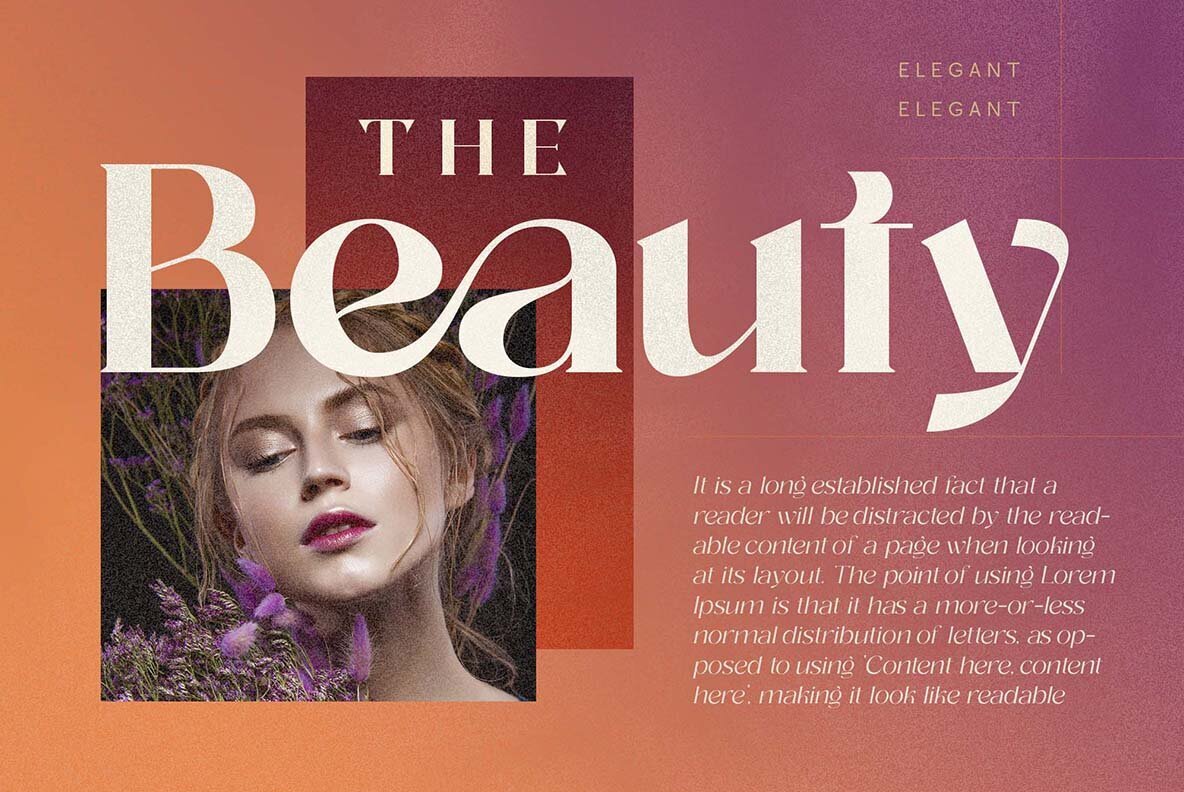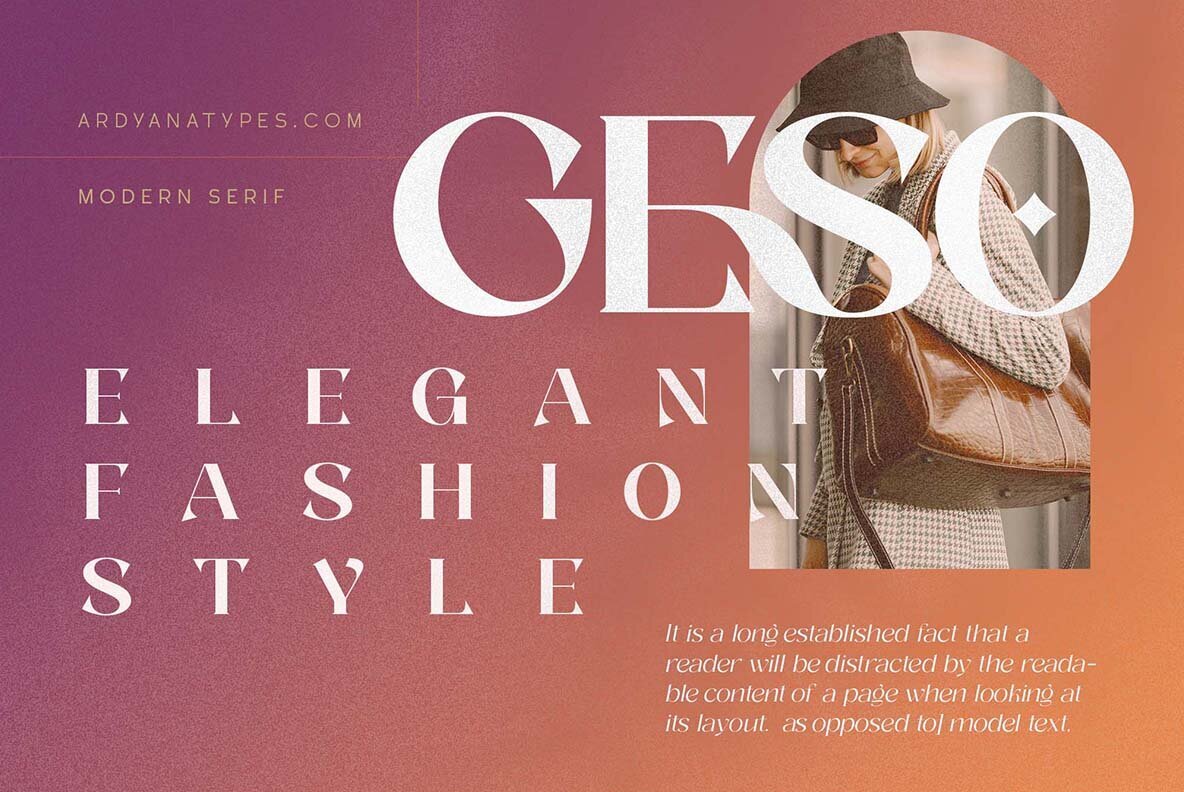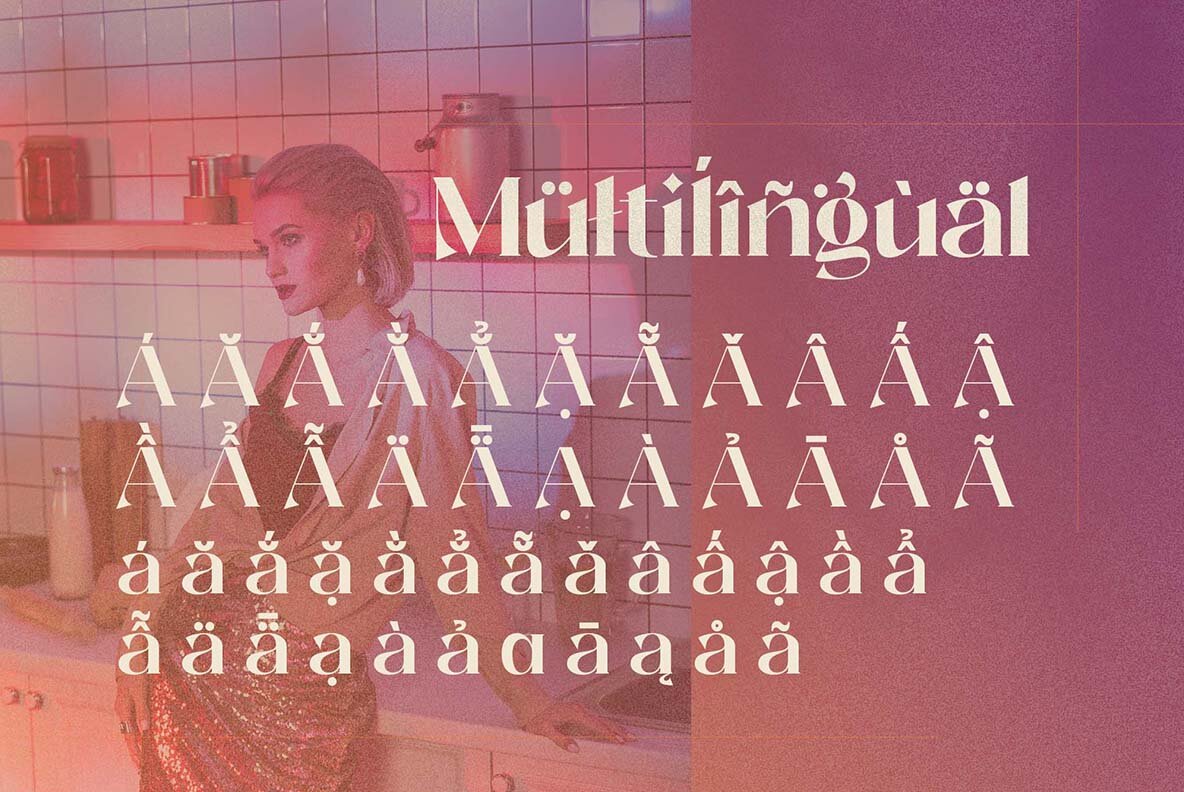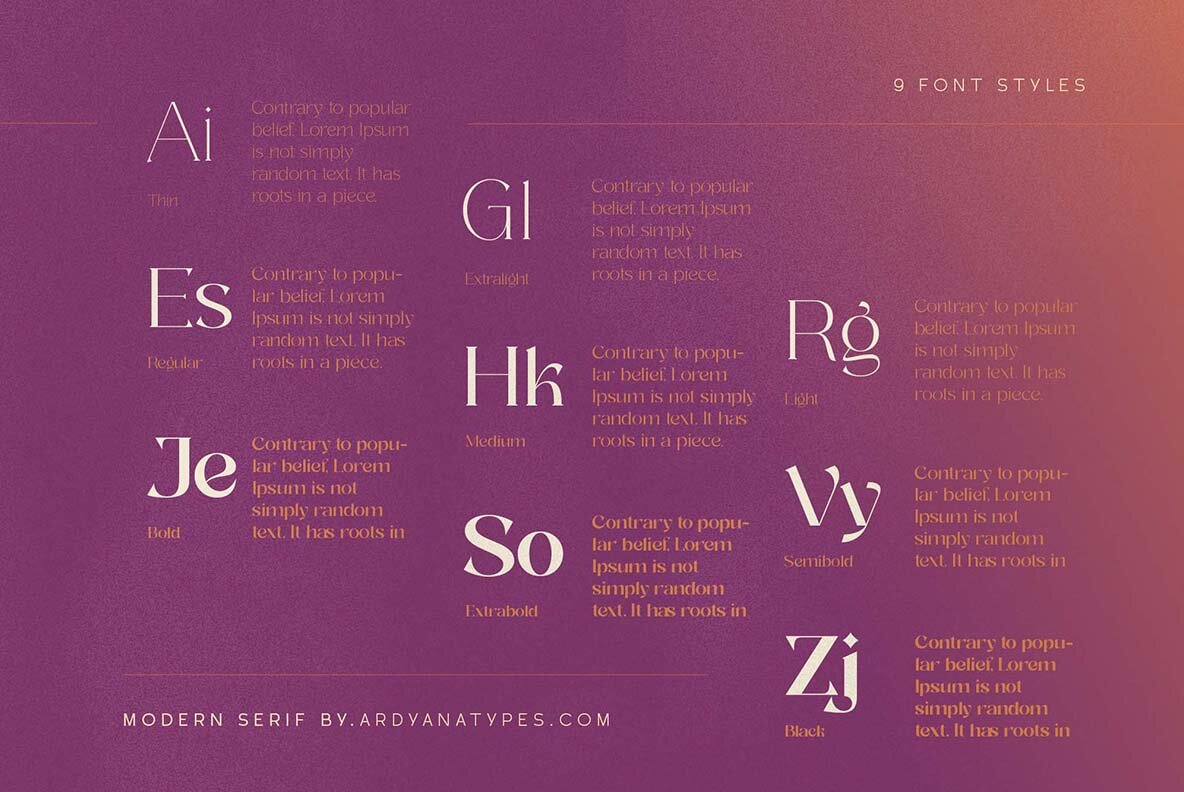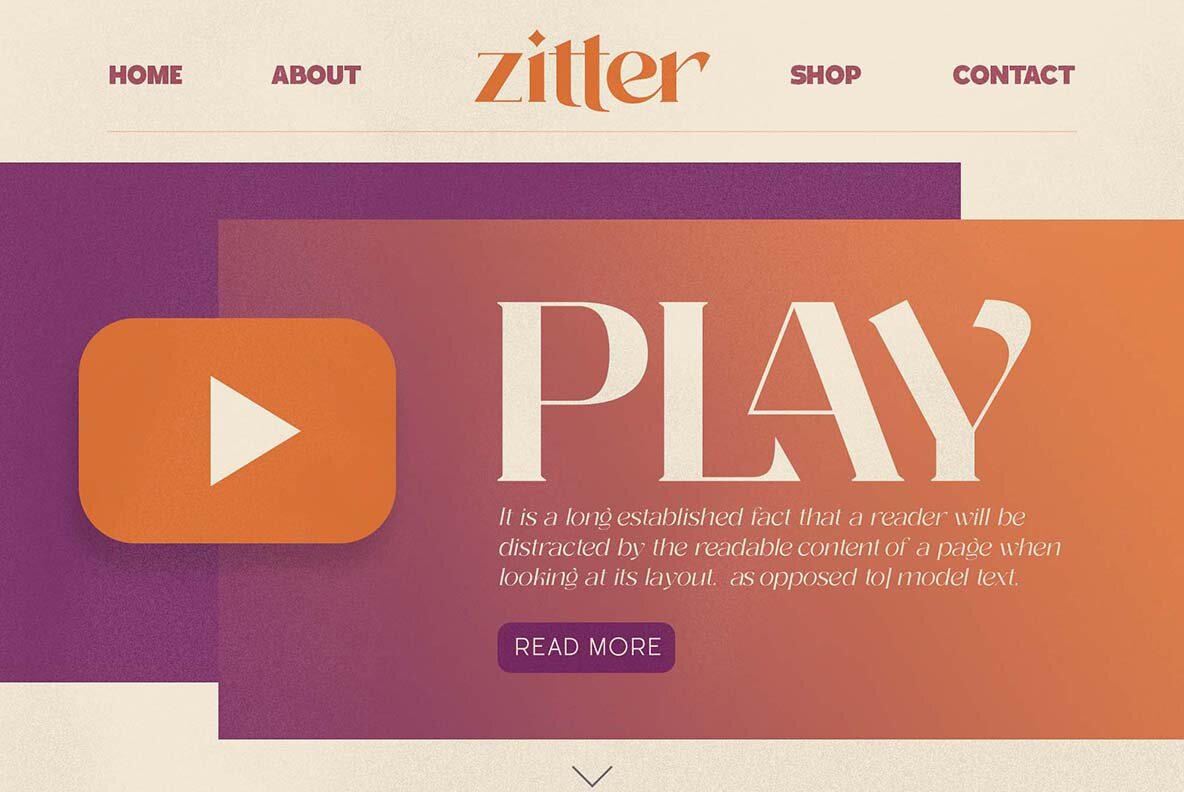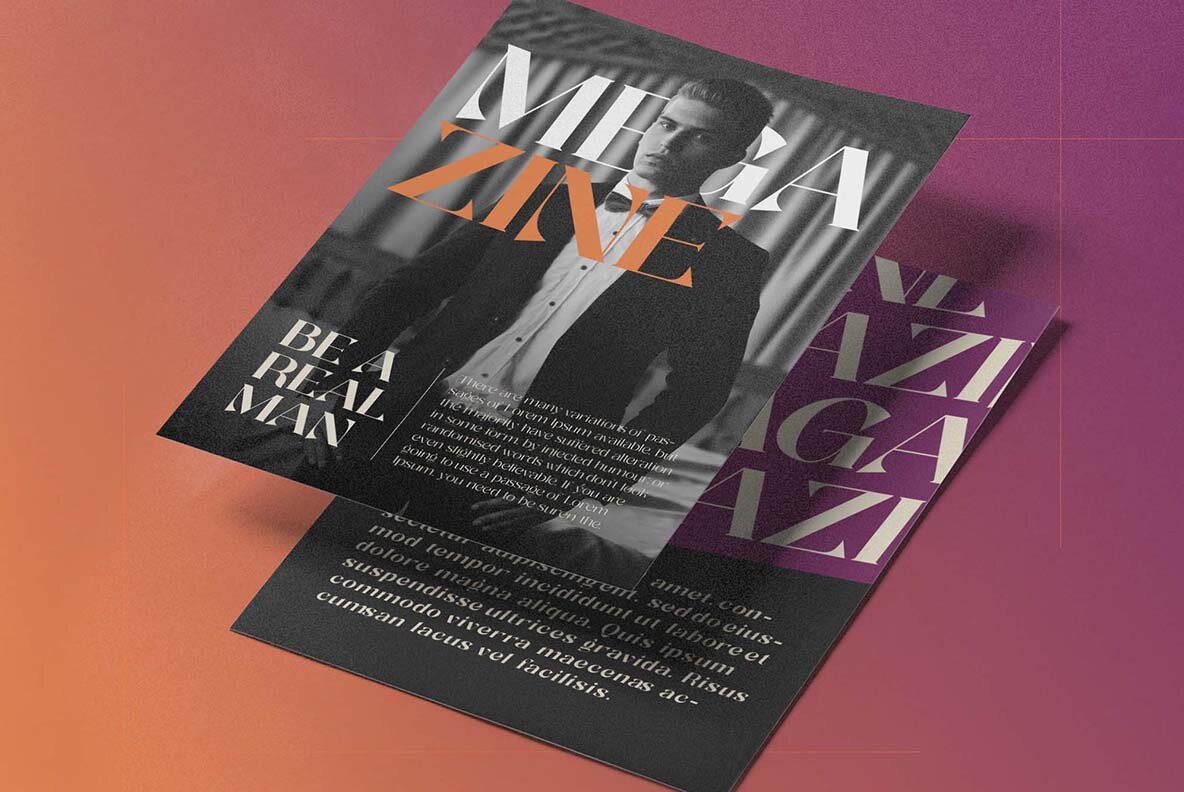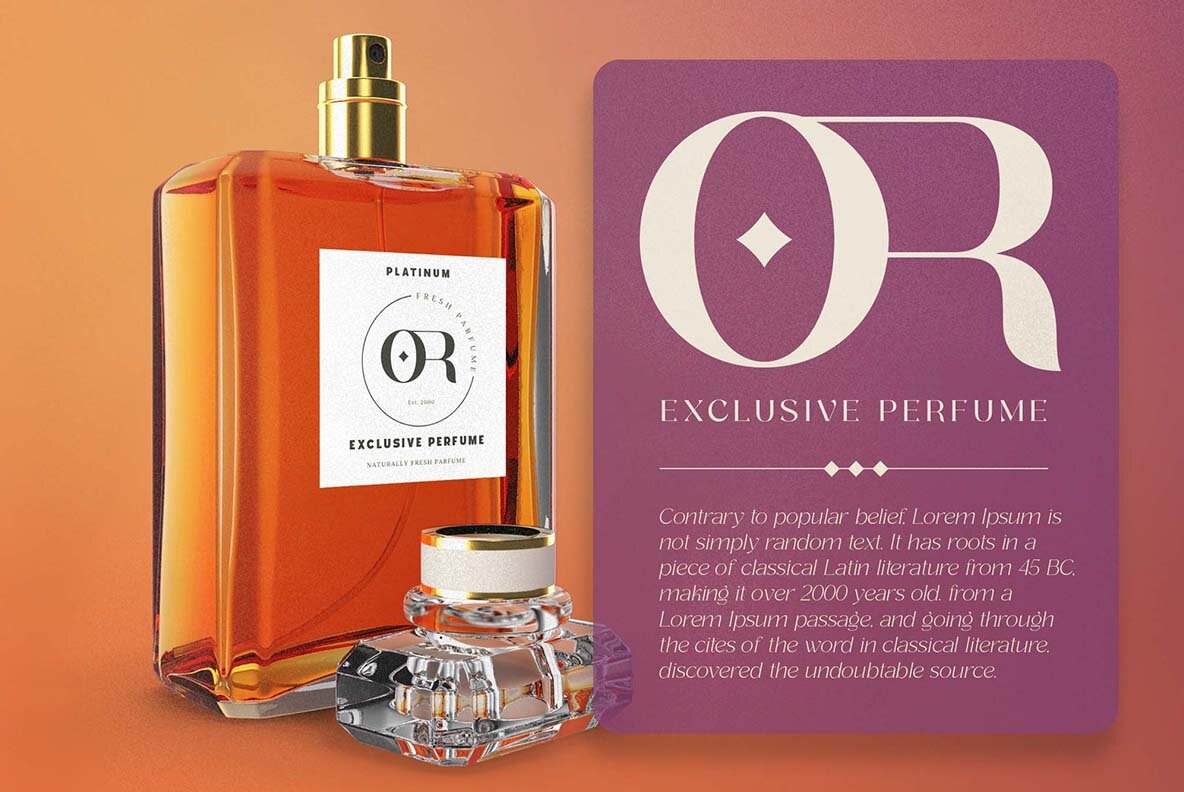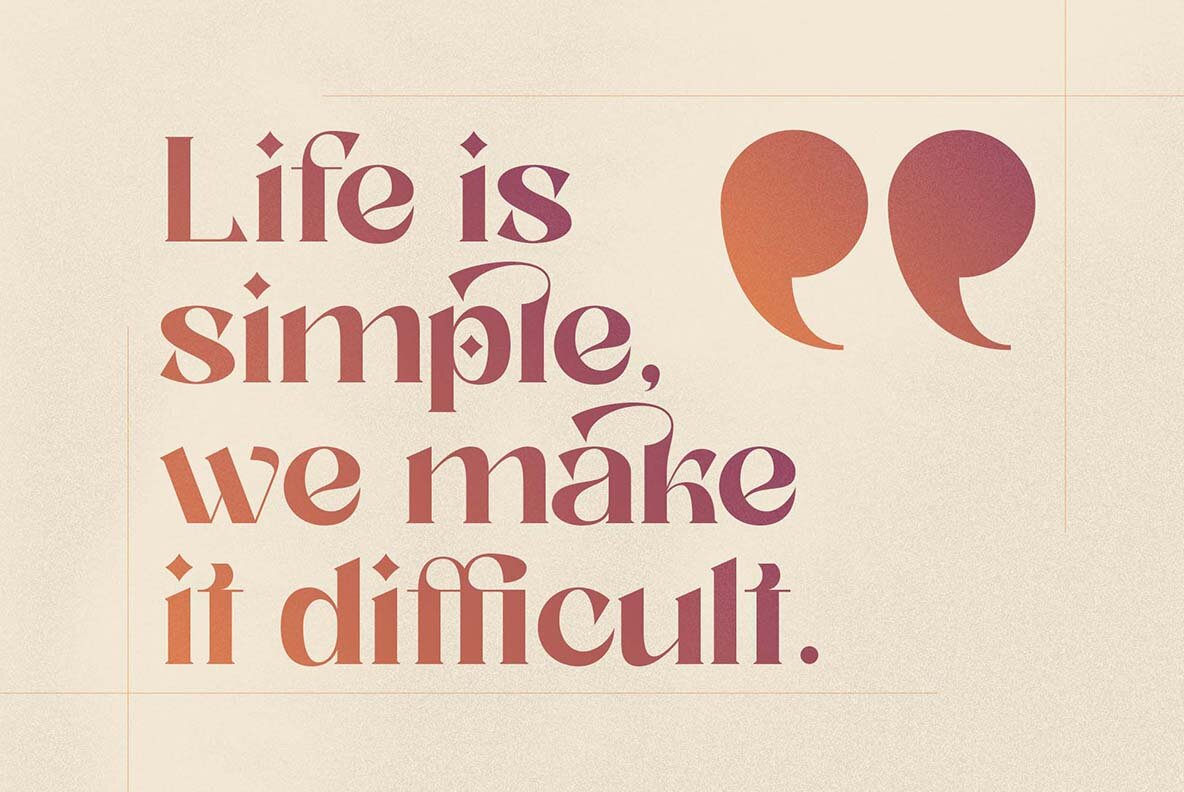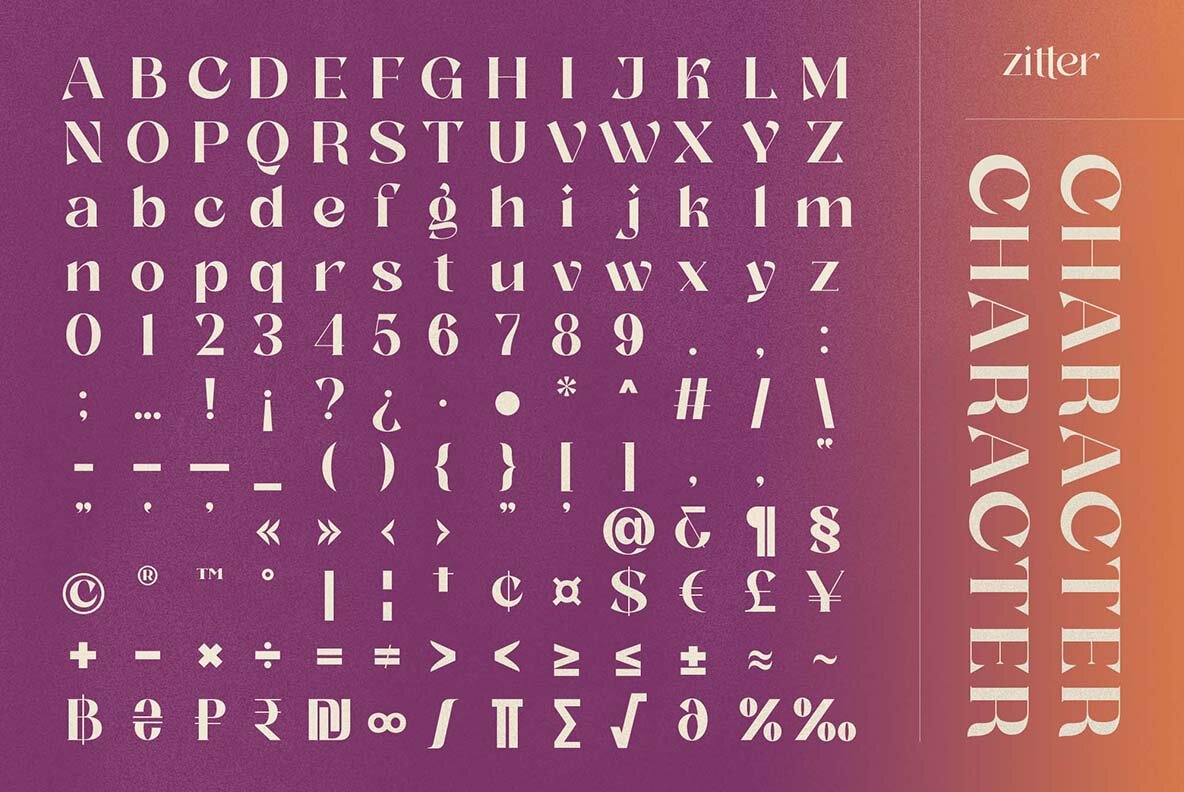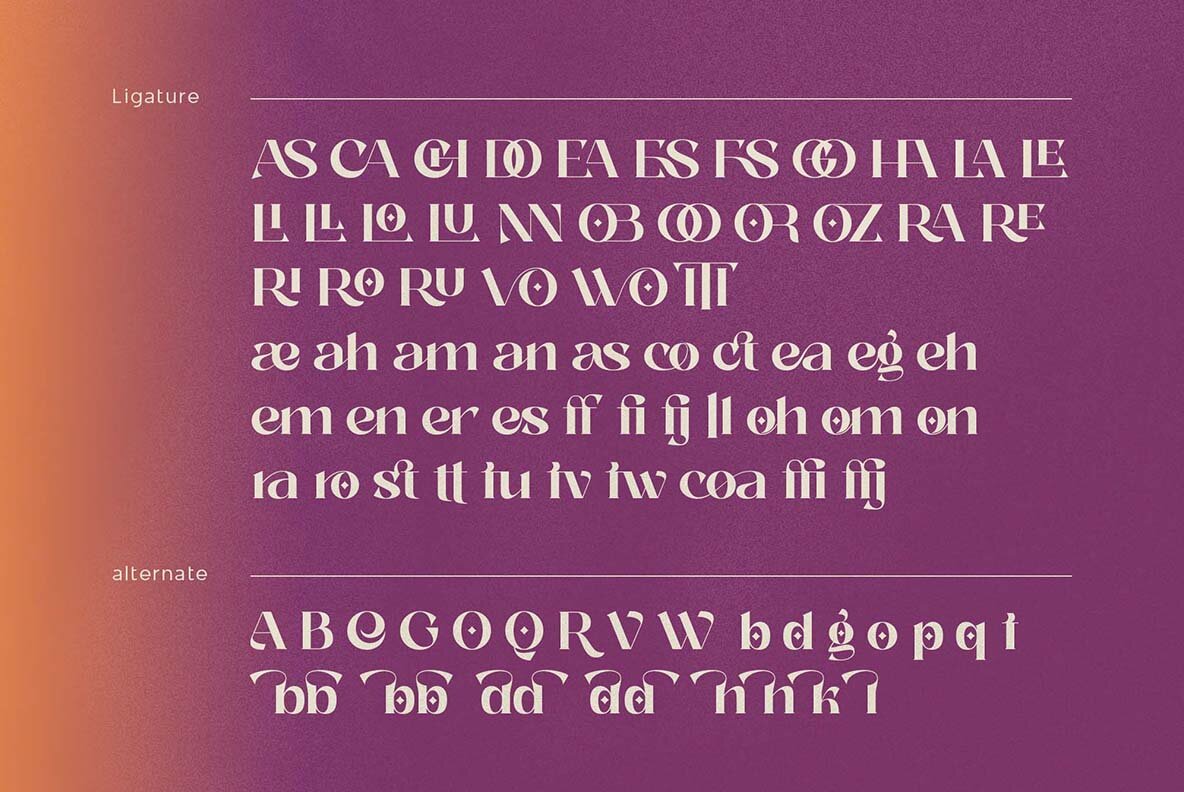
Zitter Font
Zitter Decorative Serif is a serif-style product font that looks luxurious and elegant. This font has many features that will make your designs look more beautiful and elegant. It is very suitable to be used as a type of logo and for branding your brand, and there is still much that you can do with Zitter Decorative Serif. Its unique shape adds a creative impression to it, so it can also use for any fancy, unique, vintage, and elegant themed designs.